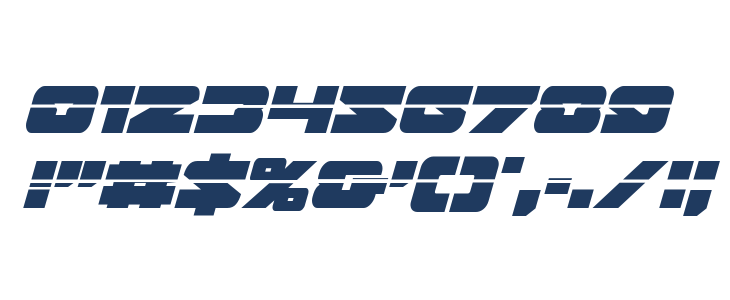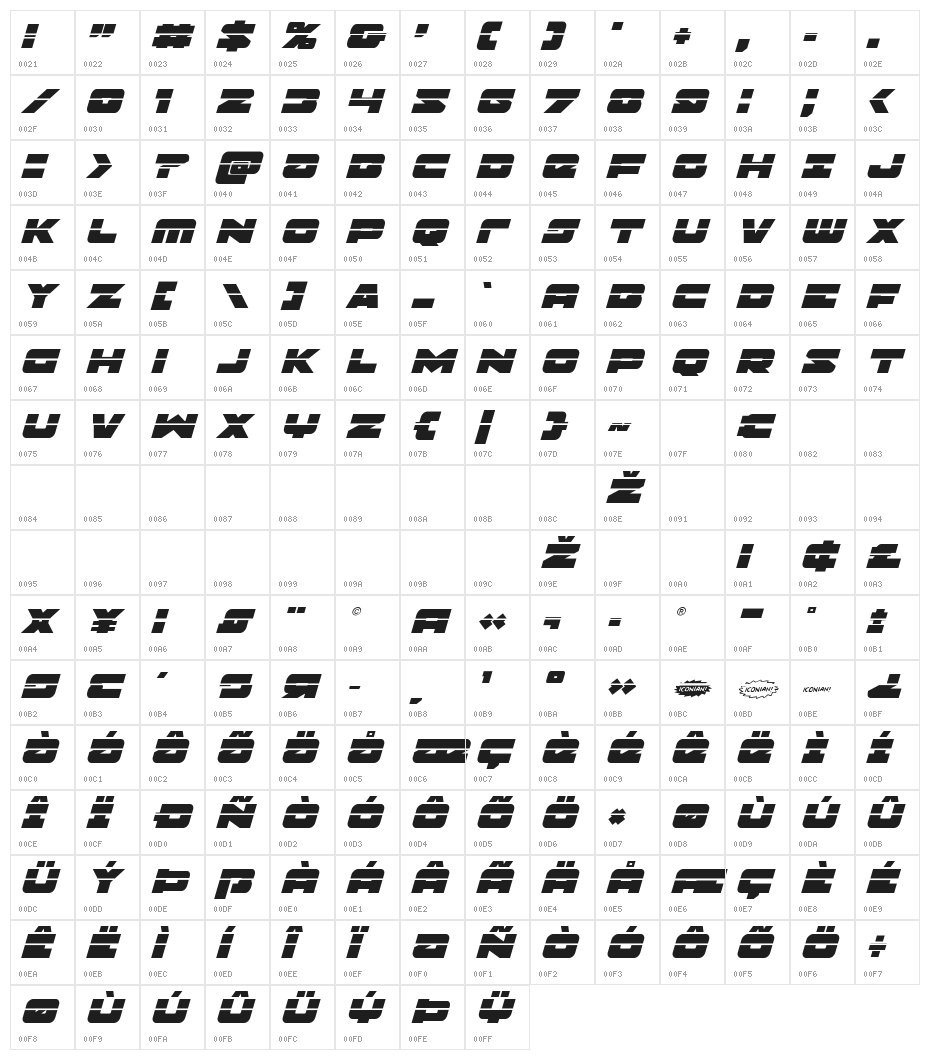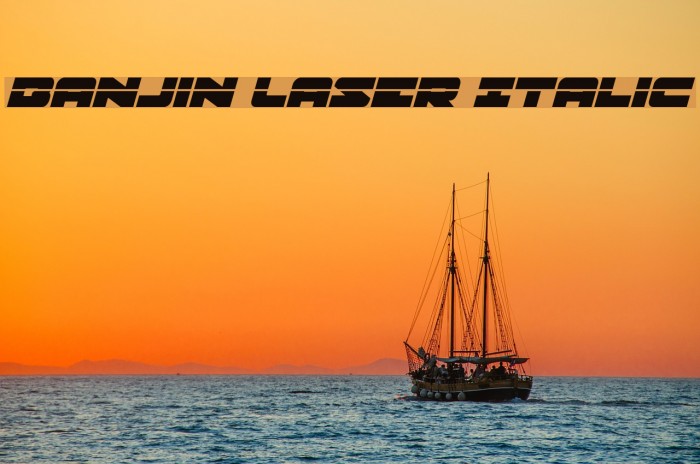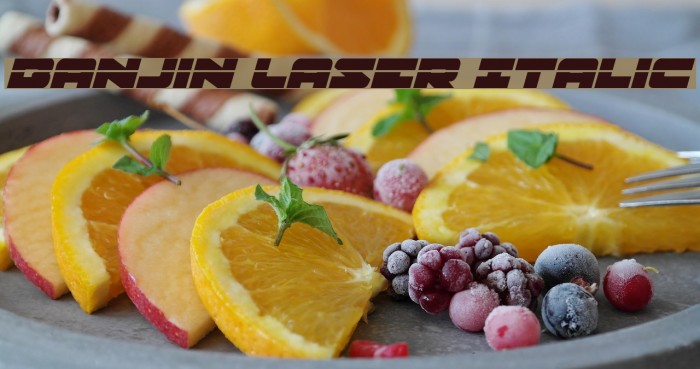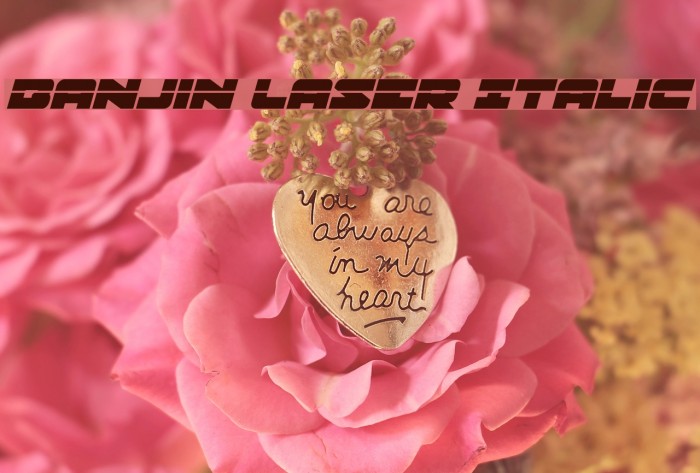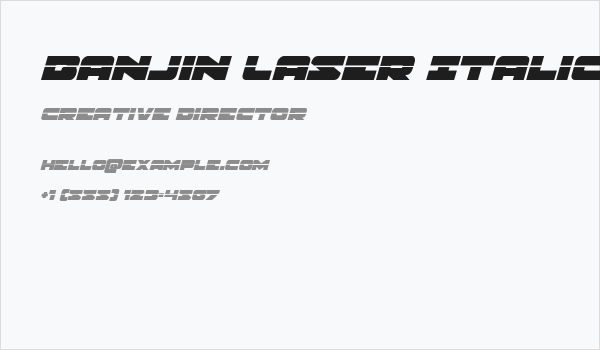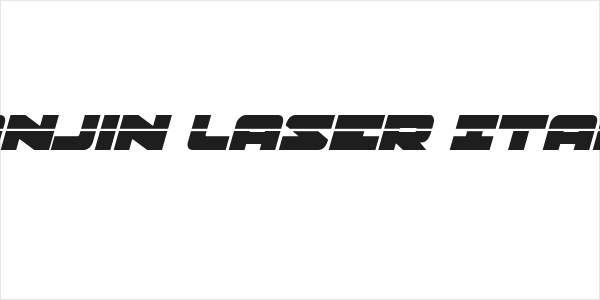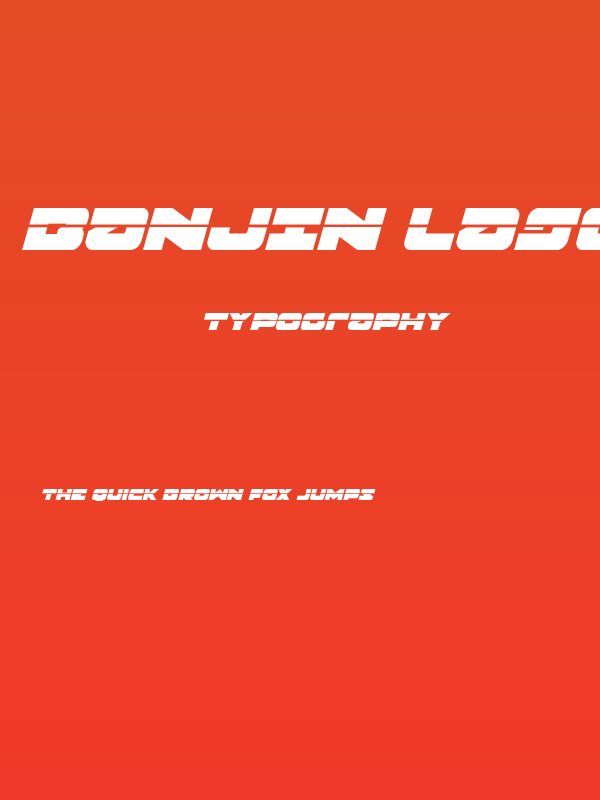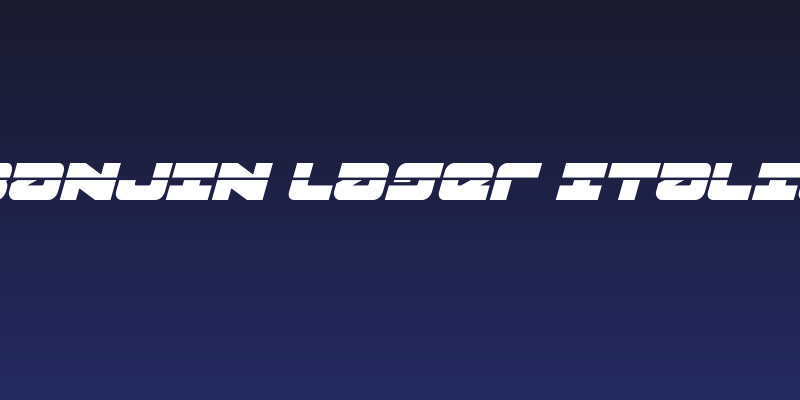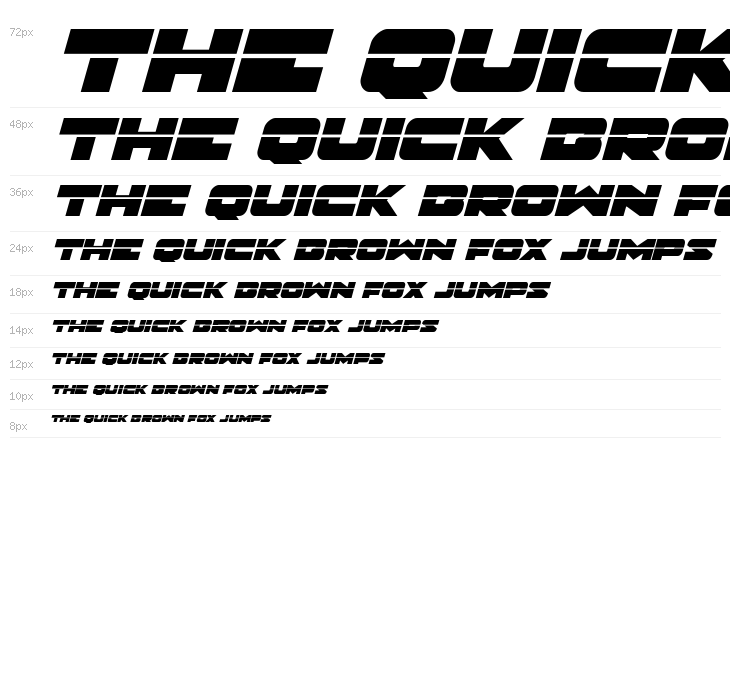
Banjin Laser Italic Font
Banjin Laser Italic Description
This font features a bold, futuristic design with sharp angles and a distinct italic slant. The characters are constructed with a blocky, geometric style that gives a sense of speed and modernity. The uppercase letters are particularly striking, with a consistent height and width that create a uniform appearance. The lowercase letters maintain the same boldness, ensuring readability while preserving the font's unique aesthetic. Numbers and special characters are designed to match the overall style, making this font versatile for various applications. The high contrast in stroke thickness adds to its dynamic look, making it ideal for attention-grabbing designs.
Overall StyleFuturistic
Proposed ProjectsIdeal for sci-fi themed projects, tech branding, video game titles, and modern posters.